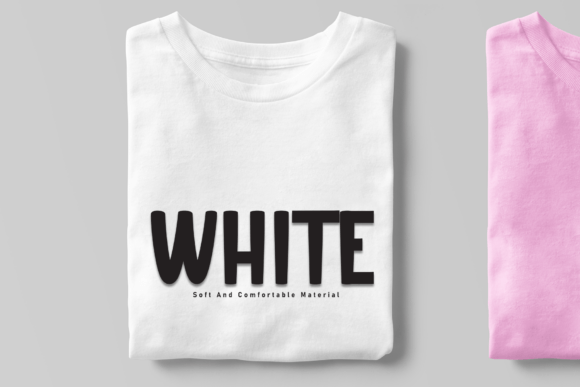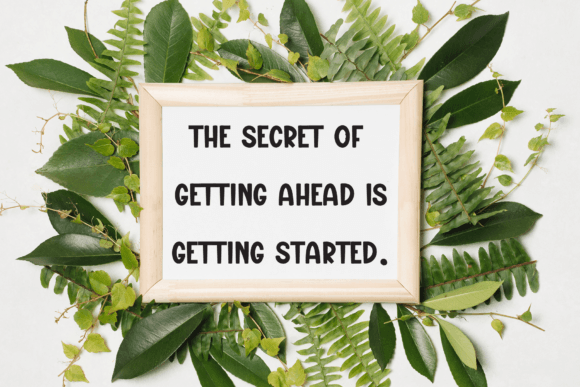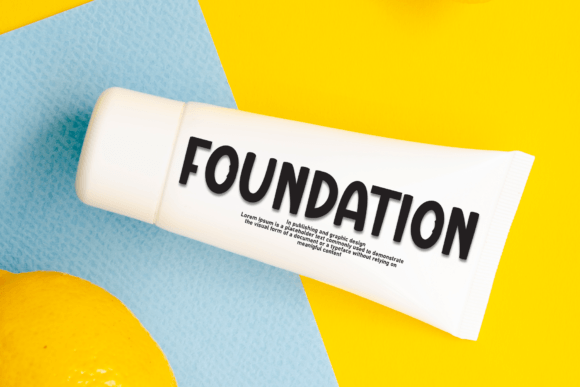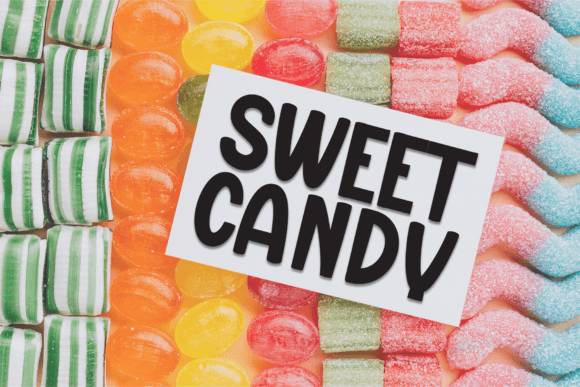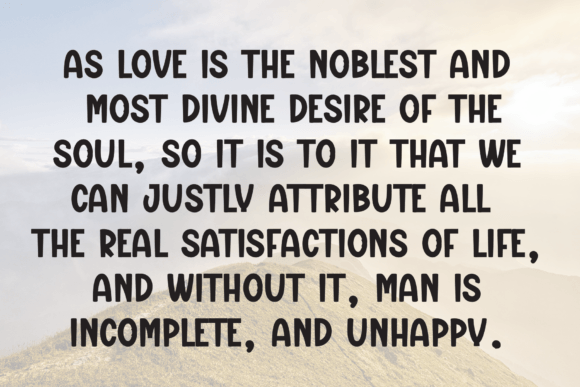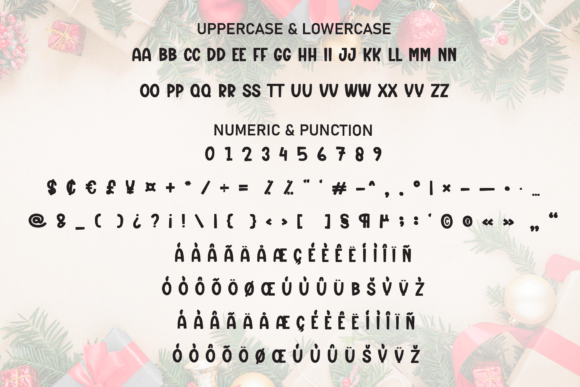
Introducing Christmas Saturday Font: A Charming Handwritten Display Font
Are you looking for a font that can add a touch of personality and whimsy to your designs? Look no further than the Christmas Saturday Font, a charming and personable handwritten display font that’s perfect for a variety of creative projects. With its endearing character and playful nature, this font is sure to bring a smile to your face and a dash of fun to your designs.
A Perfect Fit for Wedding Invitations and More
Whether you’re a designer or a crafter, the Christmas Saturday Font is an excellent choice for adding a delightful touch to your wedding invitations, heartfelt cards, or any other design that aims to sprinkle a dollop of fun. This font’s sweet and friendly aesthetics make it an ideal fit for projects that require a personal and compassionate charisma. Imagine being able to breathe life into your designs with a font that exudes joy and warmth – the Christmas Saturday Font makes it possible.
Key Features of the Christmas Saturday Font
- Handwritten with love: The Christmas Saturday Font is a carefully crafted handwritten display font that boasts a unique and personable charm.
- Playful and endearing: With its playful nature and endearing character, this font is sure to capture the hearts of your audience.
- Versatile: The Christmas Saturday Font is perfect for a variety of design projects, including wedding invitations, cards, and more.
- Easy to read: Despite its playful nature, the Christmas Saturday Font remains easy to read, making it a practical choice for designs that require a personal touch.
How to Use the Christmas Saturday Font
The Christmas Saturday Font is incredibly versatile and can be used in a variety of design projects. Here are a few ideas to get you started:
- Wedding invitations: Add a touch of whimsy and romance to your wedding invitations with the Christmas Saturday Font.
- Heartfelt cards: Create personalized and heartfelt cards for special occasions, such as birthdays, anniversaries, and holidays.
- Party decorations: Use the Christmas Saturday Font to create festive and fun party decorations, such as banners, garlands, and more.
- Social media graphics: Add a dash of personality to your social media graphics, such as Facebook posts, Instagram stories, and more.
Why Choose the Christmas Saturday Font?
With so many fonts available, why choose the Christmas Saturday Font? Here are a few reasons why this font stands out from the rest:
- Unique and personable: The Christmas Saturday Font boasts a unique and personable charm that’s hard to find in other fonts.
- High-quality design: This font is carefully crafted with attention to detail, ensuring a high-quality design that will elevate your projects.
In conclusion, the Christmas Saturday Font is a charming and personable handwritten display font that’s perfect for adding a delightful touch to your designs. With its sweet and friendly aesthetics, playful nature, and versatility, this font is sure to breathe compassionate charisma and joy into every crafting endeavor you undertake. Whether you’re a designer or a crafter, the Christmas Saturday Font is an excellent choice for any project that requires a personal and whimsical touch.